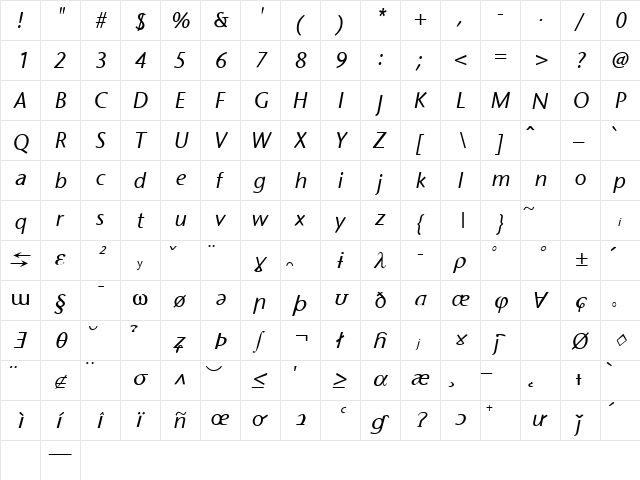
Four Sticks 4 Italic
Design Context for Four Sticks 4 Typeface
Four Sticks 4 is a composed and adaptable typeface that performs quietly and consistently across a wide range of design contexts. The dynamic lean of this cut emphasises speed and emphasis in any layout.
Pro Tip: Use Four Sticks 4 for emphasis, pull quotes, and subheadings where its slanted energy can add rhythm to the layout.